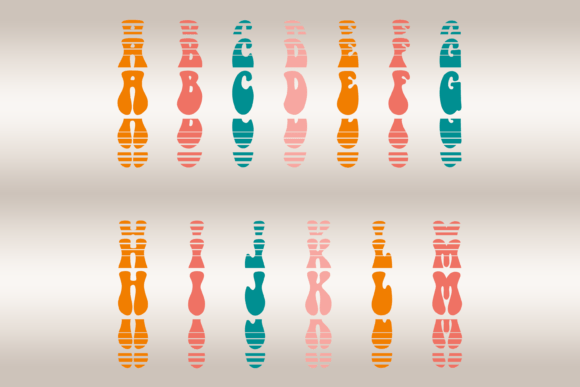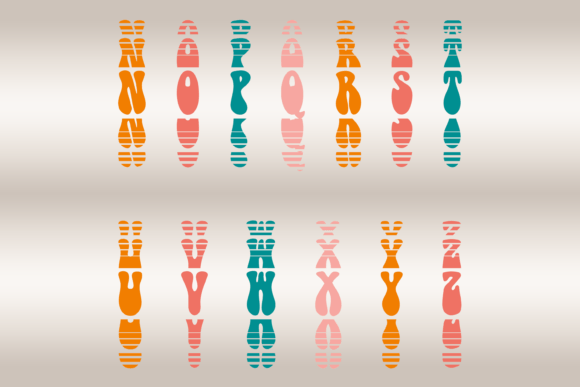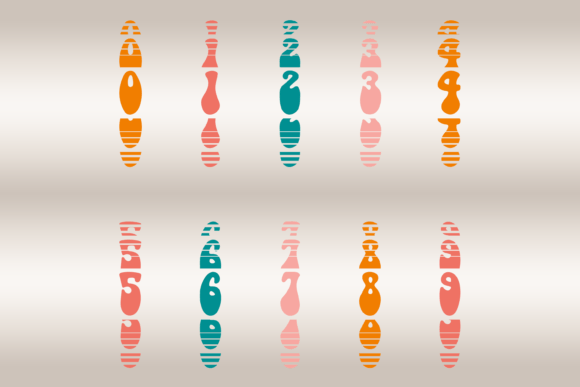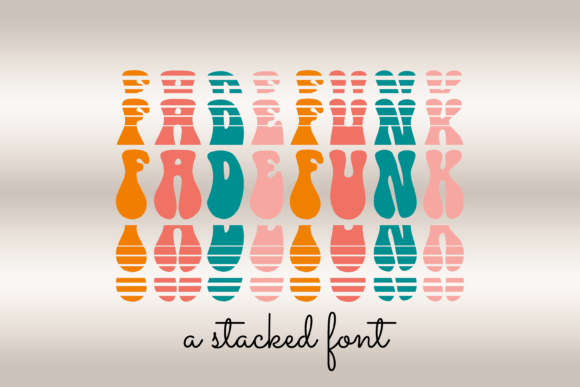
Introducing Fadefunk Font: The Ultimate Display Font for Creative Projects
Are you tired of using the same old fonts for your designs and crafts? Look no further! Fadefunk Font is here to revolutionize your creative projects with its unique and playful style. In this article, we’ll dive into the world of Fadefunk Font, exploring its features, benefits, and uses. Whether you’re a designer, crafter, or DIY enthusiast, you’ll love what this font has to offer.
What is Fadefunk Font?
Fadefunk Font is an incredibly cool and fun display font that’s perfect for adding a lovely touch to your creations. Its distinctive style is sure to grab attention and make your projects stand out from the crowd. Whether you’re designing a logo, creating custom graphics, or working on a DIY craft, Fadefunk Font is an amazing choice.
Key Features of Fadefunk Font
- Unique Style: Fadefunk Font boasts a one-of-a-kind design that’s sure to add a touch of personality to your projects.
- Display Font: This font is specifically designed for display purposes, making it perfect for headlines, titles, and other attention-grabbing elements.
- High-Quality: Fadefunk Font is crafted with precision and attention to detail, ensuring that it looks great in any context.
- Versatile: This font can be used for a wide range of projects, from digital designs to print materials and DIY crafts.
Benefits of Using Fadefunk Font
So, why choose Fadefunk Font for your projects? Here are just a few benefits of using this amazing font:
- Adds Personality: Fadefunk Font brings a unique and playful touch to your designs, helping you to express your personality and style.
- Grabs Attention: The distinctive style of Fadefunk Font is sure to grab attention and draw the eye, making it perfect for headlines and titles.
- Enhances Creativity: With Fadefunk Font, you’ll have the freedom to experiment with different designs and styles, pushing your creativity to new heights.
Uses for Fadefunk Font
Fadefunk Font is incredibly versatile, making it suitable for a wide range of projects and applications. Here are some ideas to get you started:
- Custom Designs: Use Fadefunk Font to create stunning custom designs for your business, website, or social media channels.
- DIY Crafts: Add a personal touch to your DIY crafts, such as handmade cards, gift tags, and decorations.
- Graphic Design: Incorporate Fadefunk Font into your graphic design projects, including brochures, flyers, and posters.
- Cricut Projects: If you’re a Cricut enthusiast, you’ll love using Fadefunk Font for your cutting projects, from custom vinyl decals to iron-on designs.
Tips for Using Fadefunk Font
To get the most out of Fadefunk Font, here are some tips to keep in mind:
- Experiment with Colors: Fadefunk Font looks great in a variety of colors, so don’t be afraid to experiment and find the perfect hue for your project.
- Play with Sizes: This font can be used at a range of sizes, from small and delicate to large and bold.
- Combine with Other Fonts: Fadefunk Font pairs well with other fonts, so feel free to get creative and combine it with your favorite typefaces.